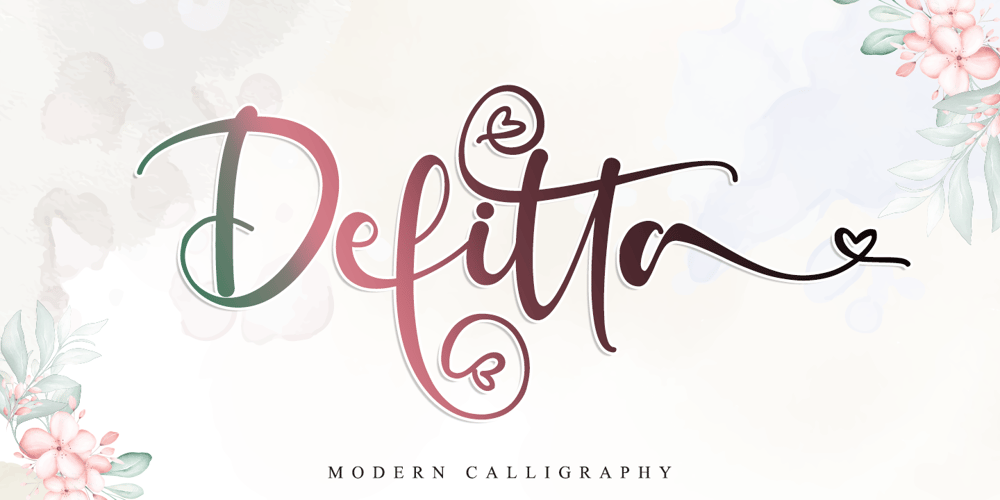
Defitta
Defitta font
Defitta Font Family was designed by Stefani Tri Rosa Setiati Christiana and published by Stefani Letter. Defitta contains 2 styles and family package options. Defitta is an incredibly beautiful script font. It has a classy, beautiful, and modern look that can be used for logos, branding, invitations, stationery, wedding designs, social media posts, and much more!This font is PUA encoded which means you can access all of the glyphs and swashes with ease! It features a varying baseline, smooth lines, gorgeous glyphs, and stunning alternates.